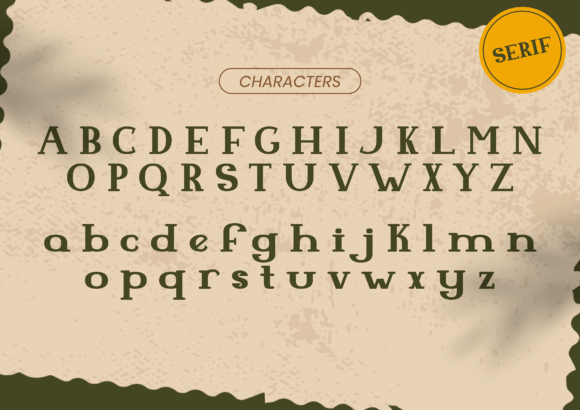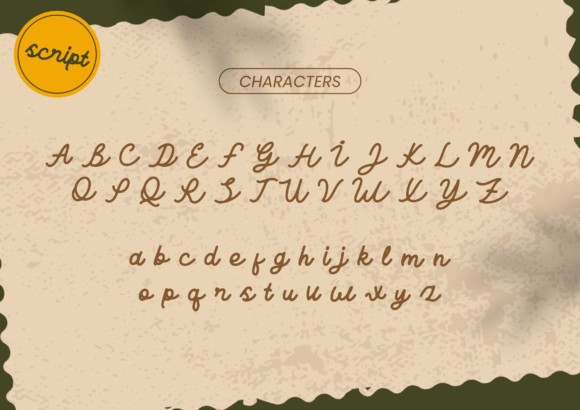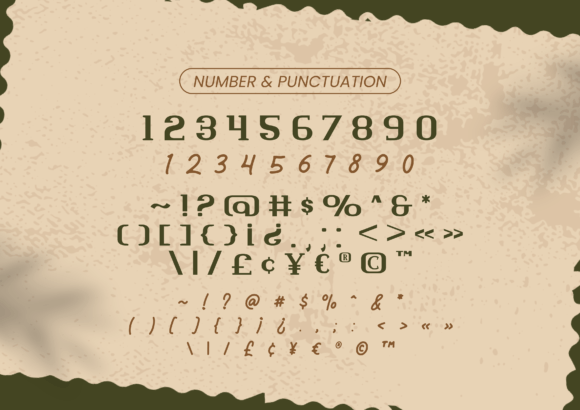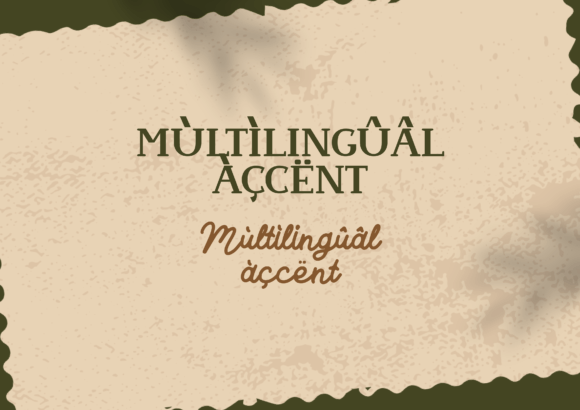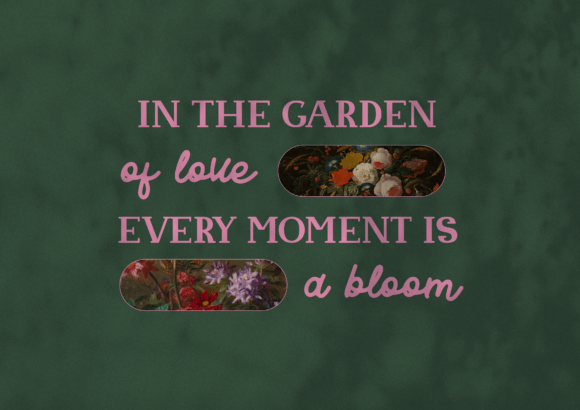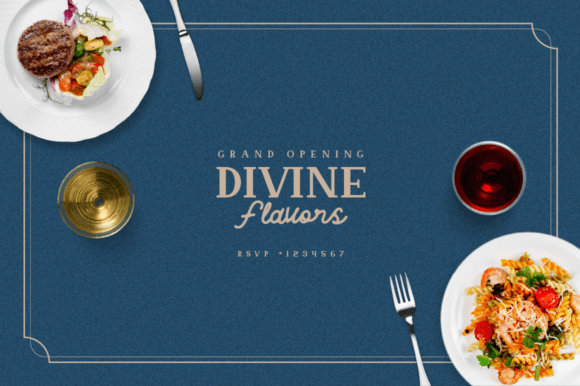
Discover the Perfect Pairing for Your Designs
Have you ever stared at a blank page, searching for the perfect combination of style and sophistication to bring your creative vision to life? For designers, finding that elusive ‘wow’ factor can be a challenge. But what if you could elevate your designs with a luxurious font duo that’s as elegant as it is charming?
Introducing Bright Citrus Duo Font, a match made in heaven featuring a beautiful balance of elegant serif and charming script styles. This perfectly paired duo brings sophistication and flair to your designs, making it the perfect choice for branding, invitations, and more. Whether you’re a seasoned pro or just starting out, the Bright Citrus Duo Font is a valuable addition to any designer’s toolkit, offering a timeless elegance that’s sure to impress.
Bright Citrus Duo Font Key Features
- Unique Characteristics: Bright Citrus Duo features a unique, hand-drawn design with bold lines and vibrant colors, creating a modern and eye-catching look that’s perfect for branding and marketing materials.
- Font Pairing: The font is designed to be paired with other sans-serif fonts, creating a clean and minimalist aesthetic that’s perfect for digital and print materials.
Bright Citrus Duo Font Review
First off, let me say that I love the overall aesthetic of the Bright Citrus Duo Font. ✨ The combination of bright and citrus-inspired colors is a great addition to any design project. The font itself is clean and modern, making it perfect for use in digital and print media.
Here are some of the things that really stand out to me:
- ✨ The bold and regular font weights work well together to create a visually appealing contrast.
- ✨ The font’s x-height is well-balanced, making it easy to read in both small and large sizes.
- ✨ The Bright Citrus Duo Font is highly customizable, allowing designers to easily change the color palette and font size to suit their needs.
- ⚠️ The font may not be suitable for use in formal or professional settings, as the bright colors may be seen as too playful or juvenile.
- ⚠️ Some users may find the font to be too busy or overwhelming, especially when used in large blocks of text.
Overall, I think the Bright Citrus Duo Font is a great addition to any designer’s toolkit. While it may not be suitable for every project, it’s perfect for use in creative and playful designs. With a little creativity and experimentation, I think designers can really make this font shine.
The Bright Citrus Duo Font is perfect for designs that require a playful, energetic, and citrusy feel, such as:
– Food and beverage branding
– Children’s products and packaging
– Summer-themed designs and campaigns
– Branding and marketing materials for health and wellness companies
To get the most out of the Bright Citrus Duo Font, try the following:
– Pair it with bright and bold colors to create a striking visual effect
– Use it in combination with other citrus-inspired graphics and elements